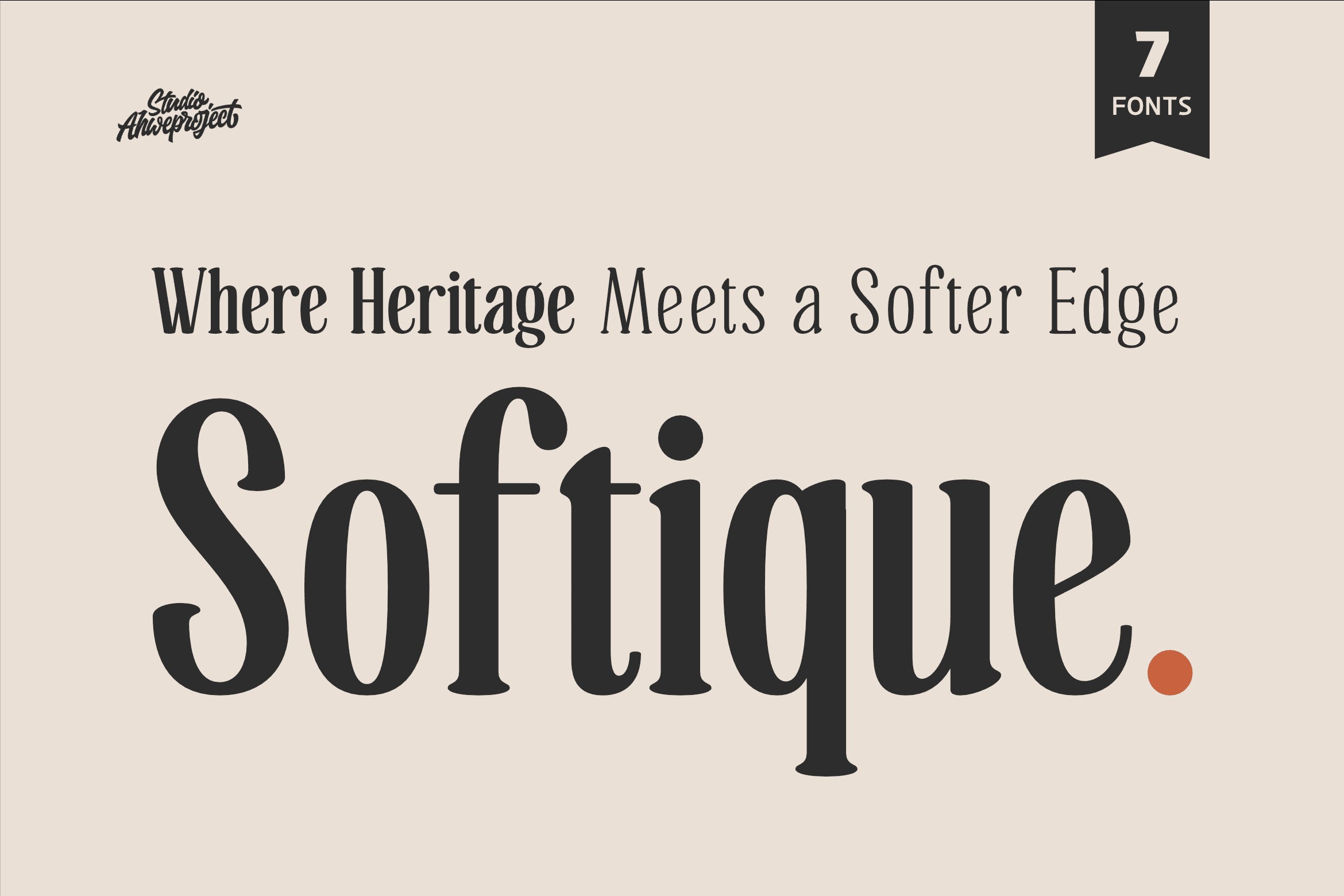
Softique – Classic Serif Font Family
Softique – Classic Serif Font brings a balanced structure and contemporary look, making it suitable for both digital and print design. Softique is a refined blend of classic elegance and modern softness. Designed for creators who want a graceful look without feeling rigid, this font brings a warm heritage touch with smooth, character-rich letterforms.
With its soft serif details and balanced proportions, Softique feels premium yet approachable—perfect for designs that aim to look classy without being distant.